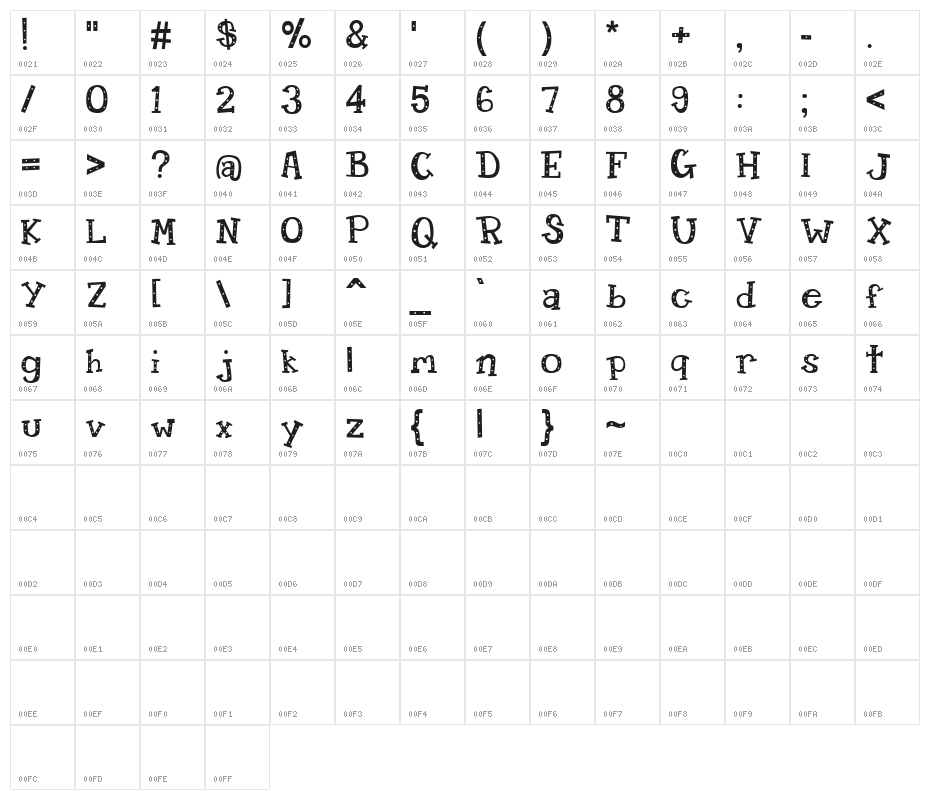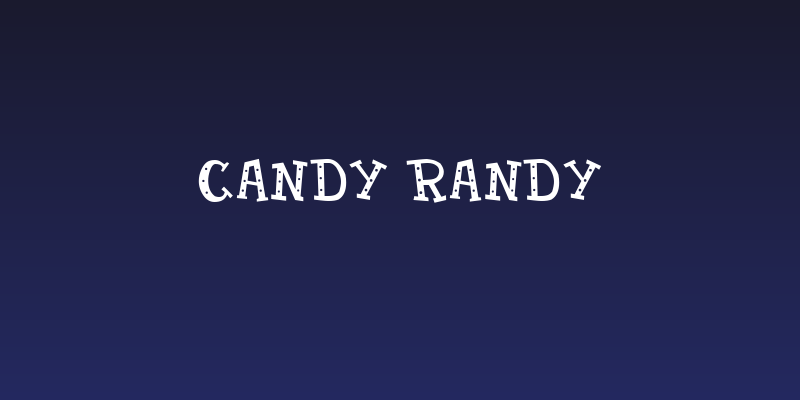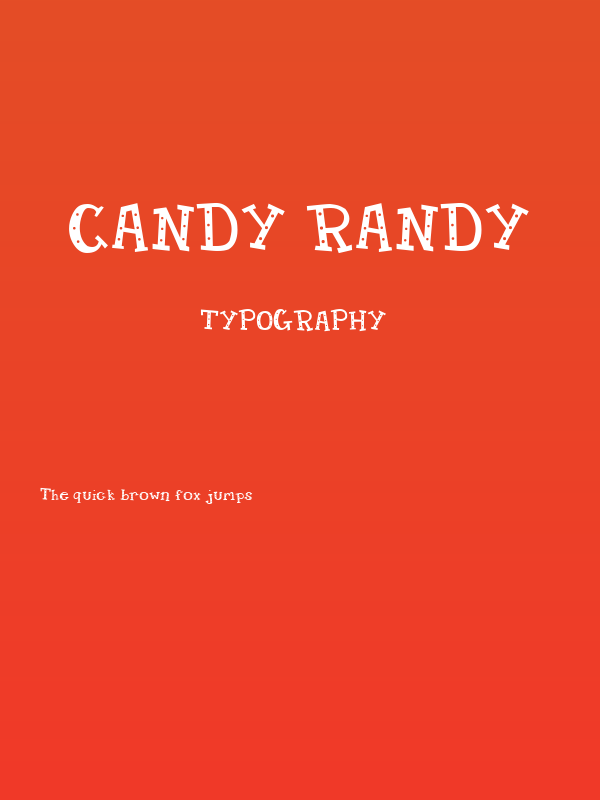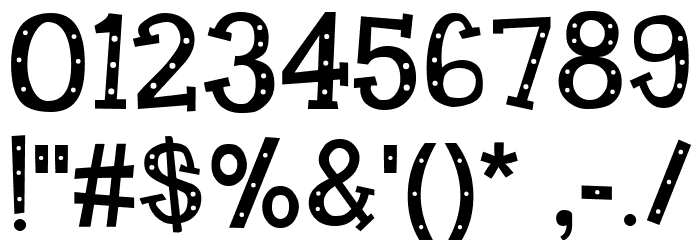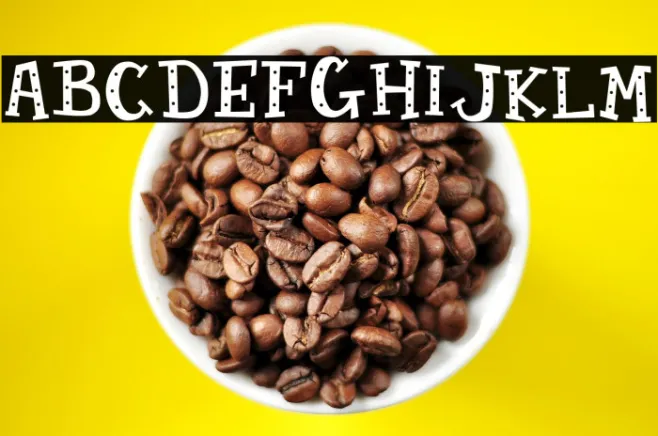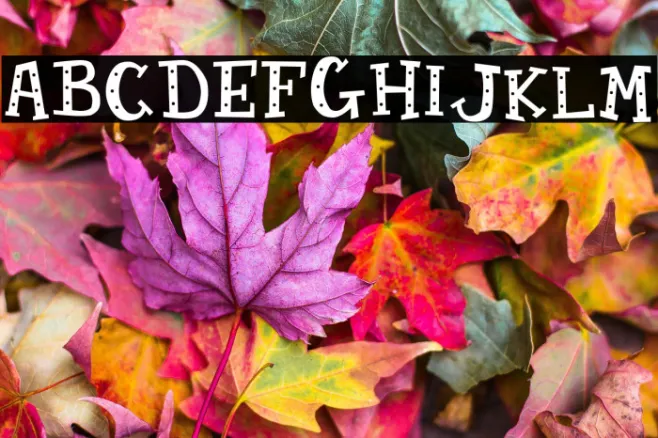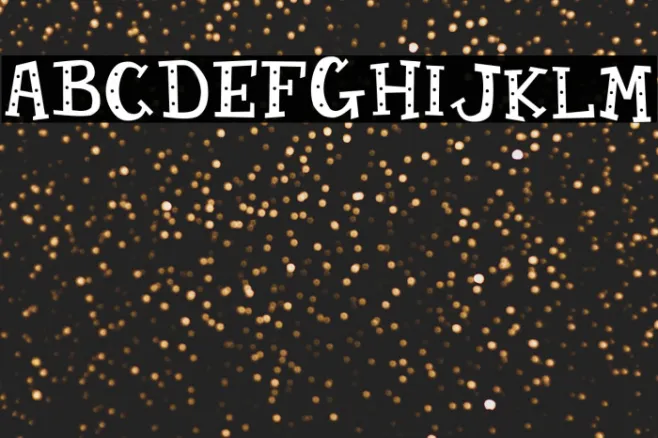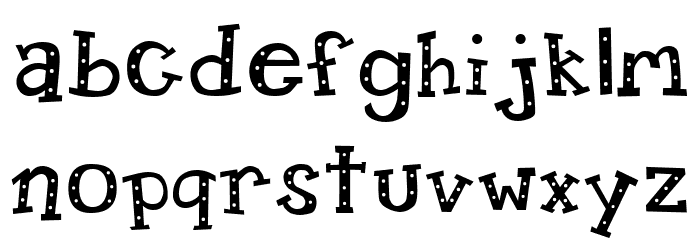
Candy Randy Font
Candy Randy Description
This playful and whimsical font features bold, rounded characters with a distinct dotted pattern along the edges, giving it a fun and lively appearance. The uppercase and lowercase letters maintain a consistent style, with slightly exaggerated curves and a casual, hand-drawn feel. The numbers and special characters follow the same design, ensuring a cohesive look across all elements. The font's unique design makes it stand out, perfect for projects that require a touch of creativity and joy. Its decorative nature is ideal for children's books, party invitations, and playful branding.
| Overall Style | Whimsical, Playful, Decorative |
| Proposed Projects | Ideal for children's books, party invitations, playful branding, and creative projects. |